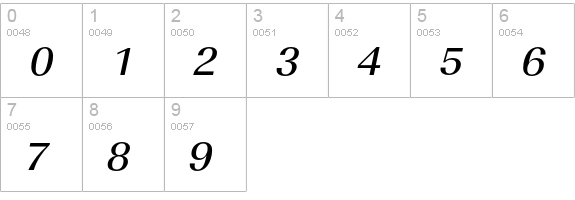
URWImperialTOTMedExtWid Oblique Font Details
URWImperialTOTMedExtWid Oblique is a distinctive, italic variant in the URWImperialTOTMedExtWid typeface family \xE2\x80\x94 well suited to design and typography projects.
The URWImperialTOTMedExtWid Oblique font is a stylish and versatile typeface that combines traditional elegance with a modern twist. Featuring a distinctive oblique design, this font exudes sophistication and charm, making it perfect for a wide range of design projects. What sets this font apart is its unique blend of classic and contemporary elements, making it suitable for both traditional and modern settings. Its extended width adds a bold and dynamic touch to any text, making it stand out in headlines, logos, and other display applications. Best of all, this font is available for free download at FontsMarket.com, making it easily accessible for designers and creatives looking to enhance their projects with a touch of elegance and style. So why wait? Download the URWImperialTOTMedExtWid Oblique font today and add a touch of sophistication to your designs!